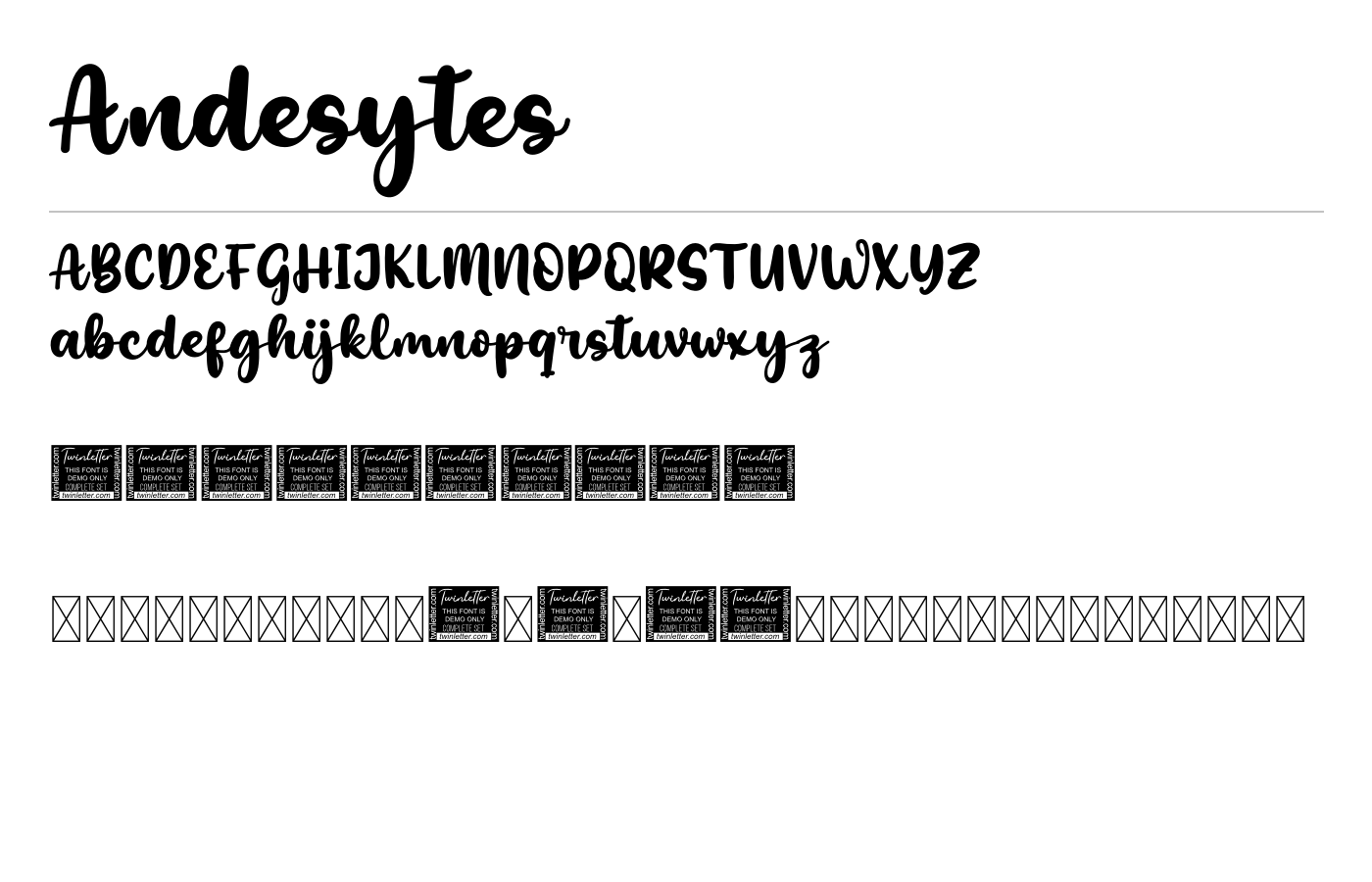
Andesytes is a playful and friendly script font featuring smooth, rounded strokes and a casual handwritten feel. Its balanced weight and clear letterforms make it perfect for creative projects, invitations, logos, and branding that seek a warm and approachable tone. This font shines in designs where a personal, informal touch is desired while maintaining readability.
Andesytes Font
About Andesytes Font